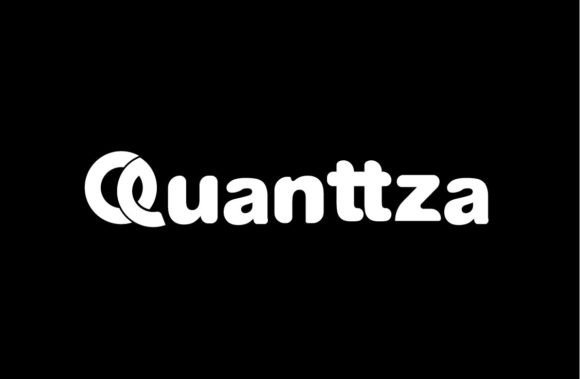
Welcome to the world of typography elegance, where Quanttza Font, a modern and stylish display font, awaits you. Created by the ingenious shintainedewi, Quanttza is not just a font; it's an artistic expression that will transform your creative projects into masterpieces.
Unleash your imagination and embrace the beauty of Quanttza, a font designed to captivate and inspire. With its clean lines, flowing curves, and distinctive character, Quanttza will add a touch of sophistication and charm to any design. Whether you're crafting wedding invitations, designing logos, or creating social media posts, Quanttza is the perfect choice for making a lasting impression.
Using Quanttza is like holding a magic wand that transforms ordinary words into works of art. Its versatility knows no bounds, allowing you to express yourself in countless ways. From elegant wedding invitations that exude romance to eye-catching logos that command attention, Quanttza will elevate your designs to new heights.
Imagine your wedding invitations adorned with Quanttza's graceful curves, conveying the joy and love of your special day. Your guests will be mesmerized by the beauty of your words, forever cherishing the invitation as a keepsake of your unforgettable celebration.
Or picture your logo designed with Quanttza's bold and confident strokes, making a statement that resonates with your brand's personality. Your customers will be drawn to the uniqueness of your logo, recognizing the thought and creativity behind it.
With Quanttza, you'll discover a world of endless possibilities, where your creativity knows no limits. Join the ranks of satisfied designers who have embraced Quanttza's allure and witnessed the transformation of their designs into stunning works of art.